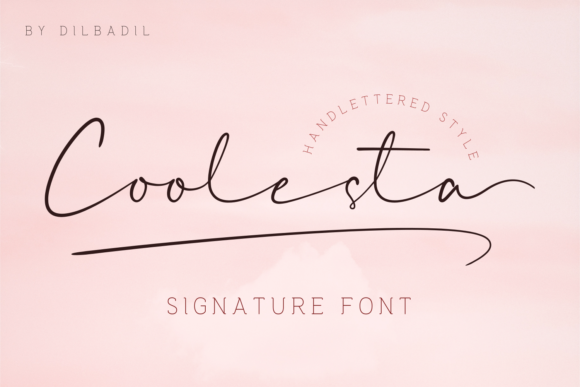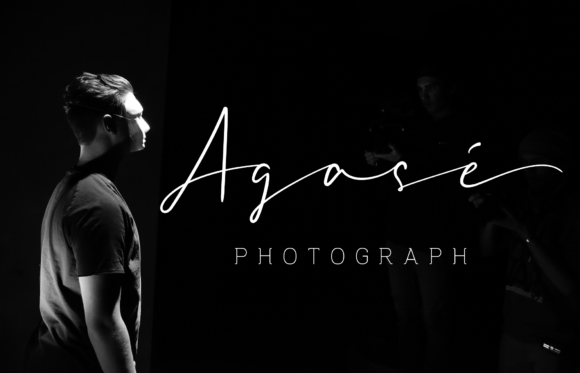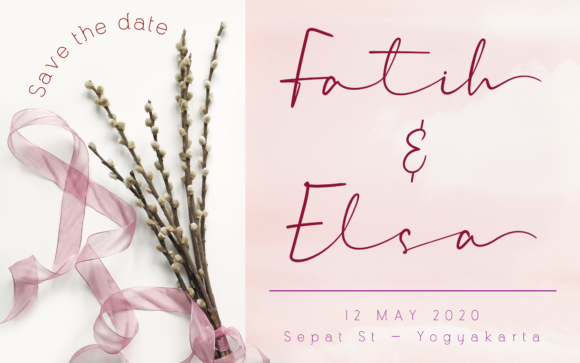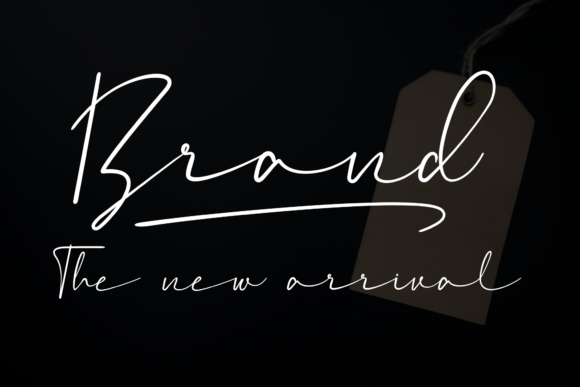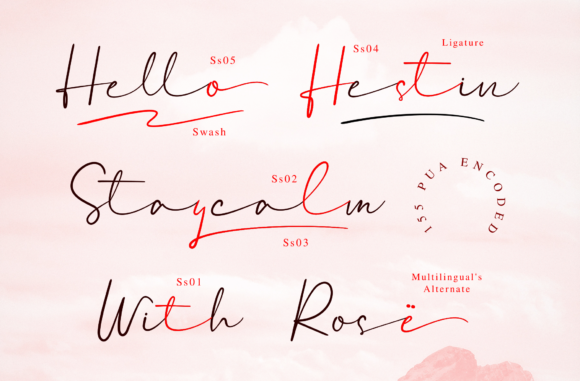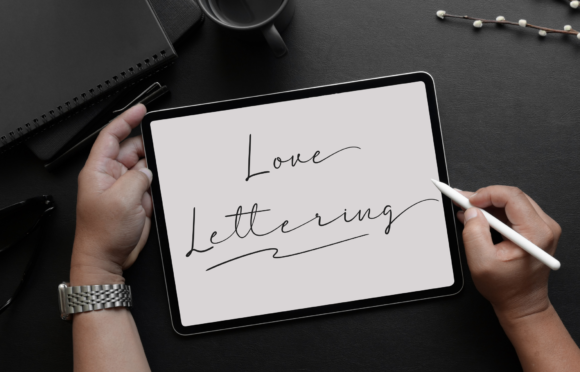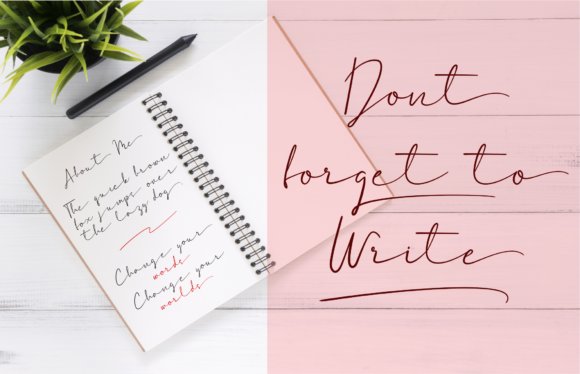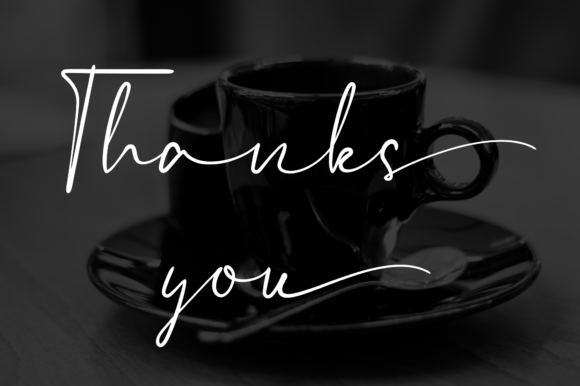
Coolesta Font
About Coolesta Font
Coolesta is an elegant and modern style font. It maintains its classy calligraphic influences while feeling contemporary and fresh. Use this gorgeous handwritten font to bring any design to life!